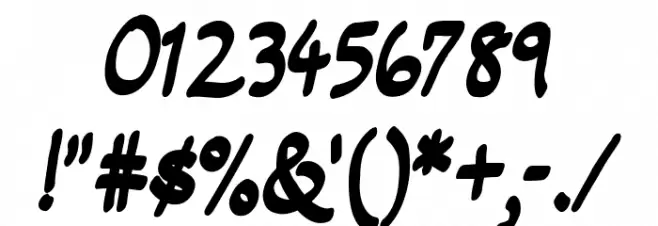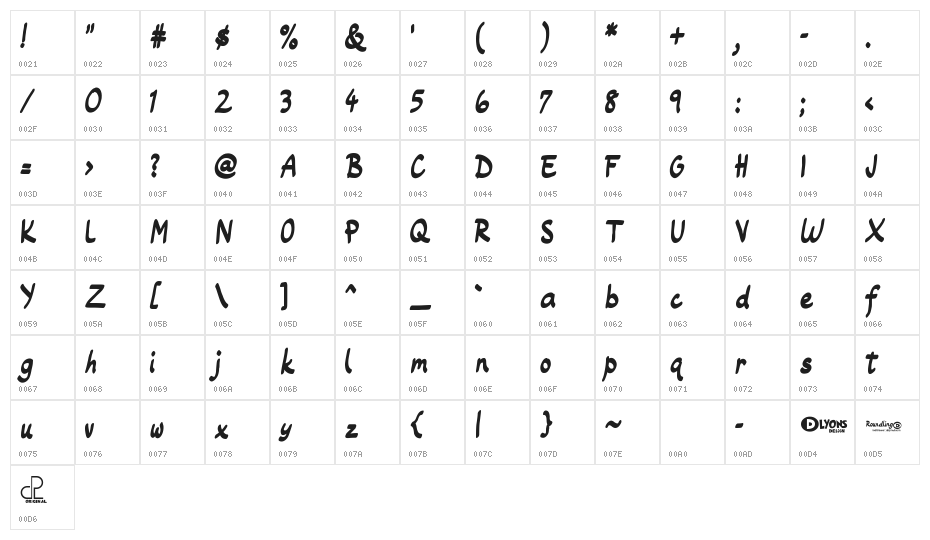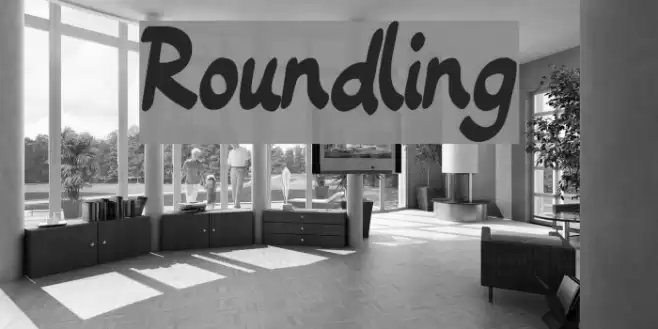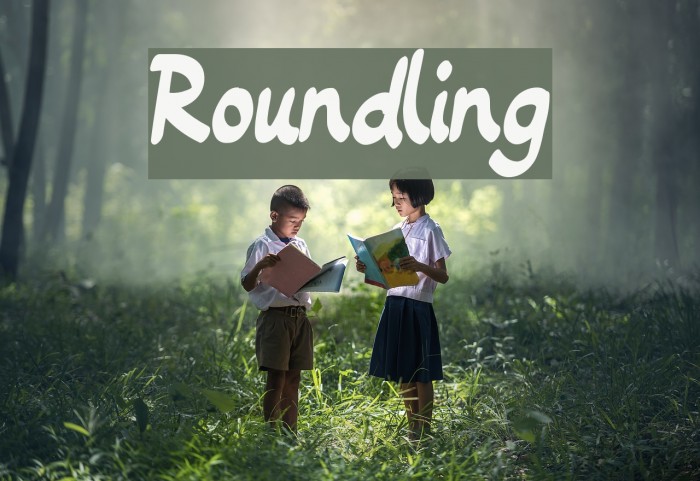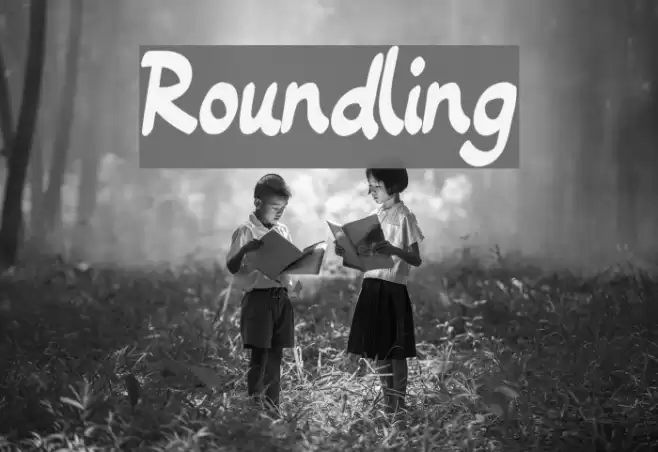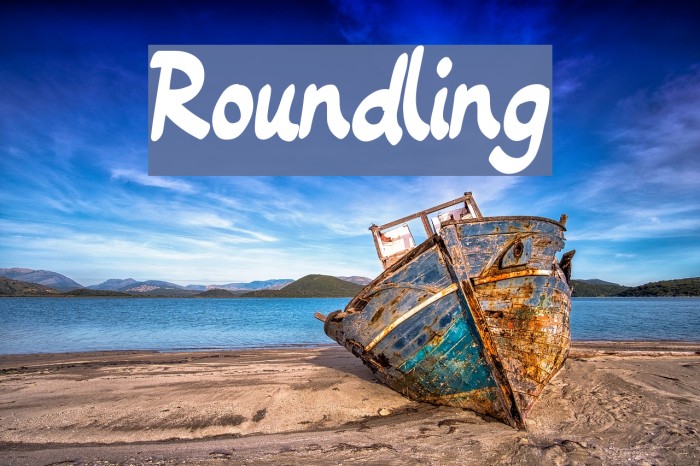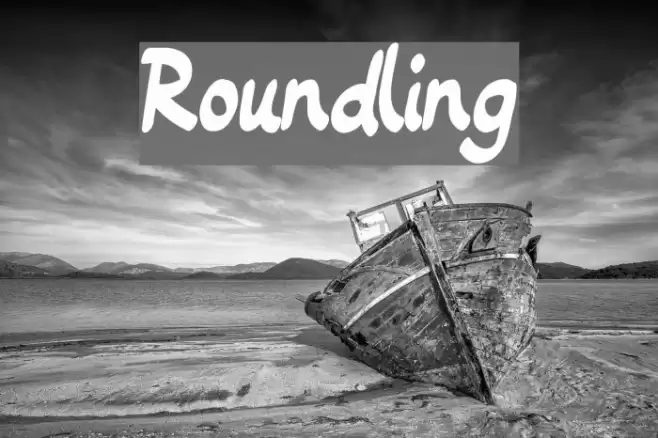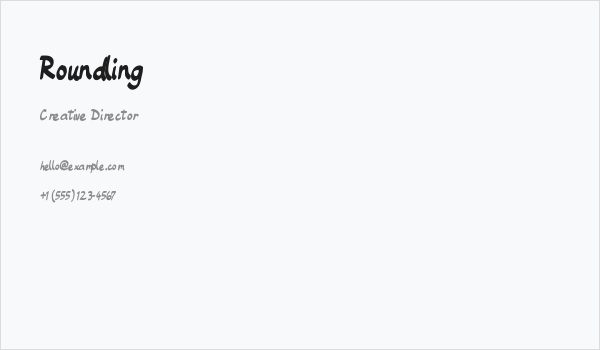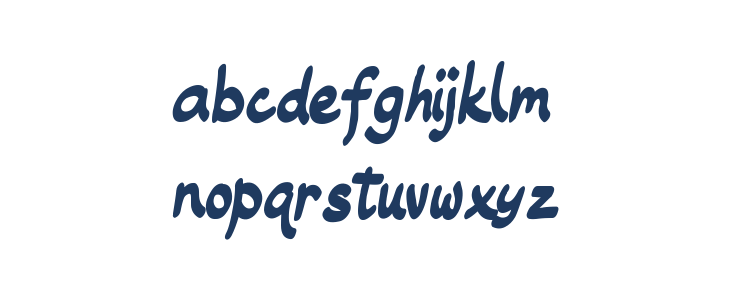
Roundling Font
Roundling Description
This font features a playful and rounded style, characterized by its smooth, flowing curves and slightly irregular shapes. The letters have a hand-drawn appearance, giving it a casual and friendly feel. The uppercase and lowercase letters maintain a consistent style, with the uppercase being slightly more structured. The numerals and special characters follow the same rounded and informal design, making the font versatile for various creative projects. Its unique style makes it stand out, while still being legible and approachable.
| Proposed Projects | Ideal for children's books, greeting cards, playful branding, and informal invitations. |